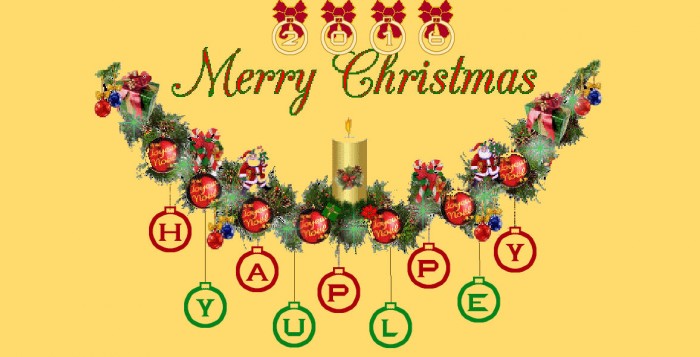
• Part of my "1 of the month" series of fonts I designed to welcome new months.
The "1st of a month"  group was a fun idea but I found it a little complicated to do as I don't usually build several different fonts concurrently (ghosting happens too easily).
This font could be used to make tree decorations, gift tags, glass markers, place cards/napkin cards, etc. Just print on sturdy paper in large size and then cut out. Use pale grey ink if you want to decorate this paper base with collage, embroidery/stitching type work; print in coloured inks for a jazzy look which you enhance with dots of glitter glue or sparkly rhinestones. For a hanging decoration thread a length of yarn through the top 'rectangle' or you remove the rectangle's center to thread ribbon through it.
For some different fun you could glue your print on card stock and create greeting cards,  jewellry pendants, shoe decorations. With a brooch back it could make a decoration of clothing, gift bags, hats.